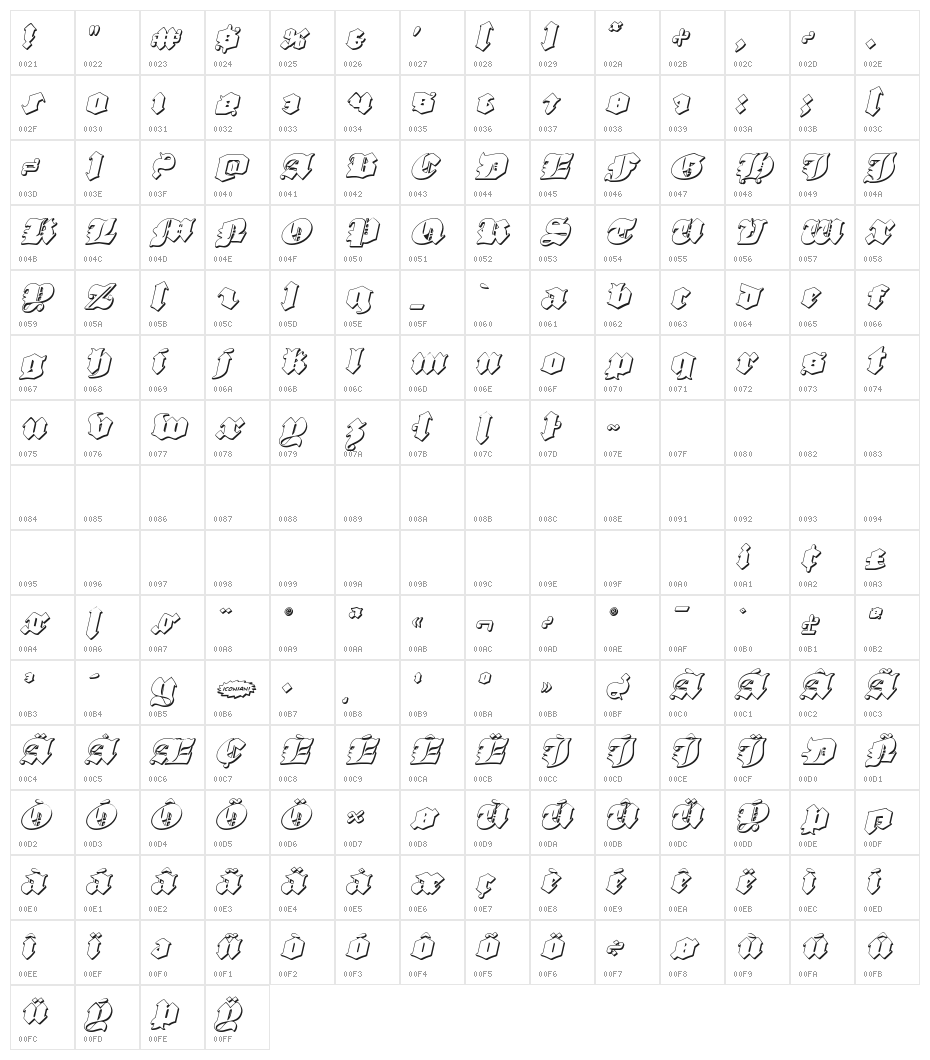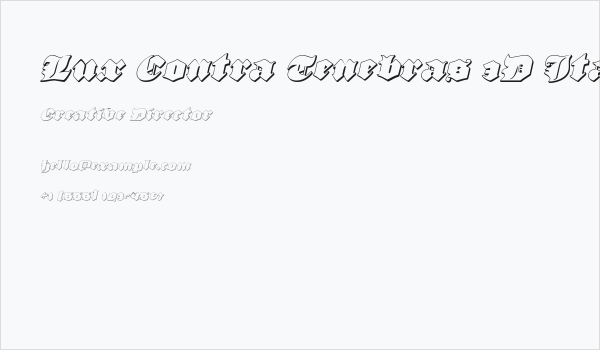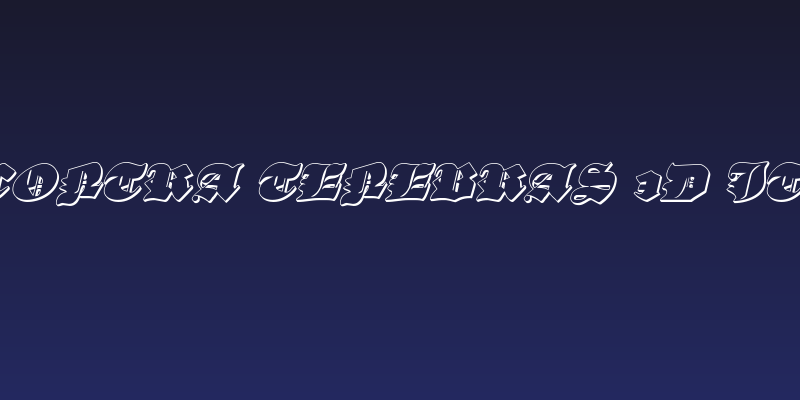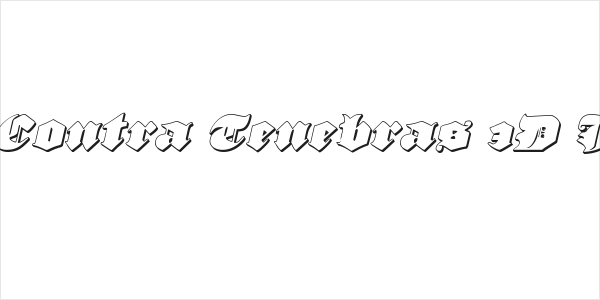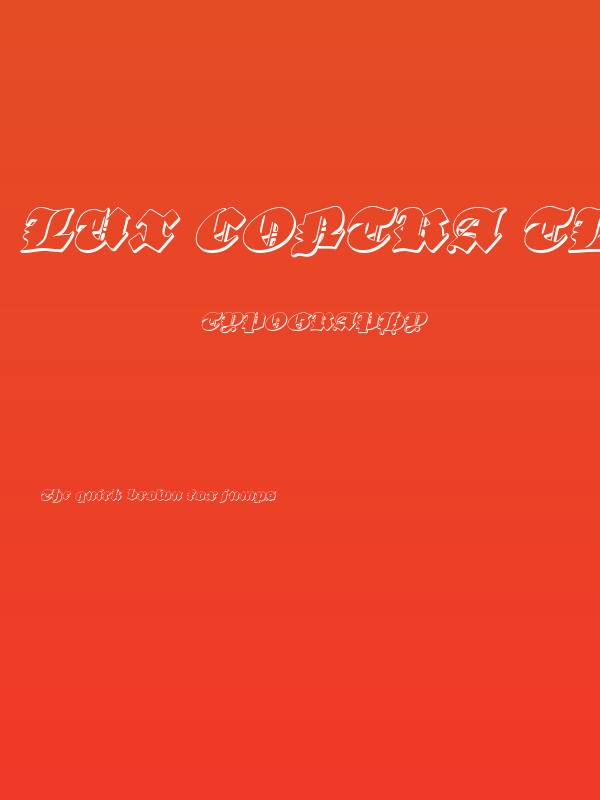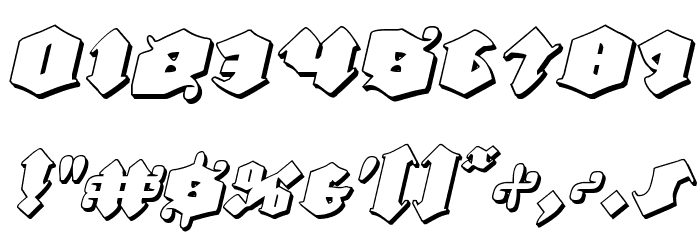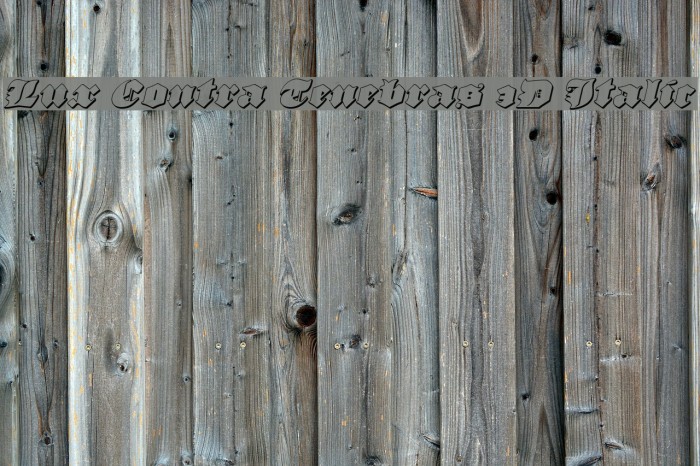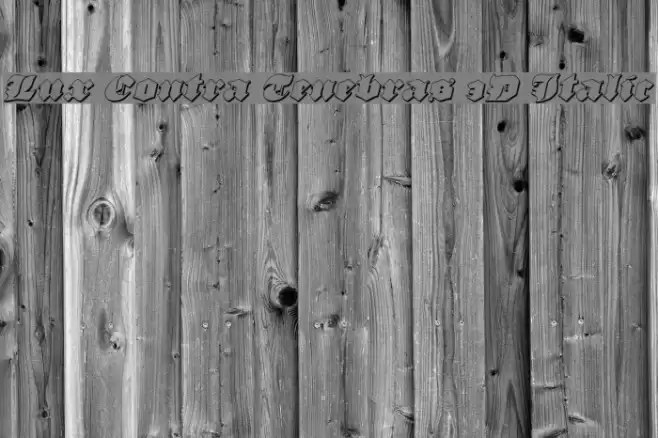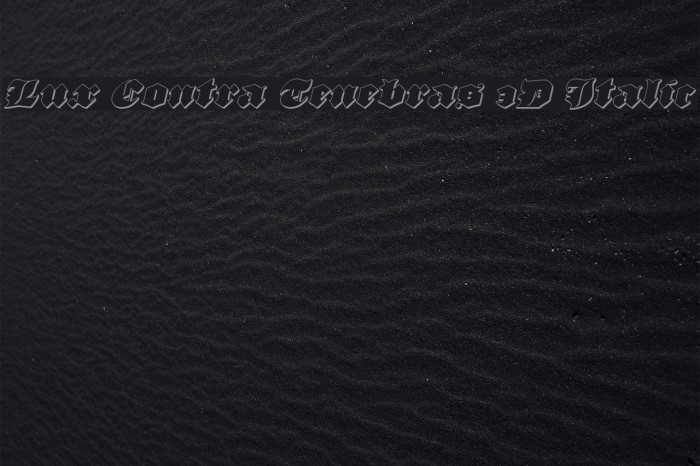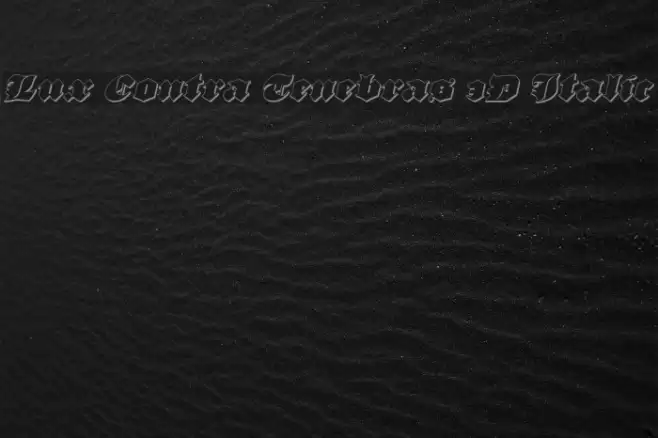
Lux Contra Tenebras 3D Italic Font
Lux Contra Tenebras 3D Italic Description
This font features a bold, three-dimensional style with a distinct italic slant, giving it a dynamic and eye-catching appearance. The characters are designed with a blackletter influence, showcasing sharp edges and intricate details that evoke a sense of historical elegance. The 3D effect adds depth and a modern twist to the traditional blackletter style, making it suitable for projects that require a blend of classic and contemporary aesthetics. The uppercase and lowercase letters maintain a consistent style, with the numerals and special characters following suit, ensuring a cohesive look across all text elements.
| Use Case | Logos, Headlines, Posters |
| Proposed Projects | Ideal for use in branding, posters, album covers, and any project that requires a striking, gothic-inspired aesthetic. |